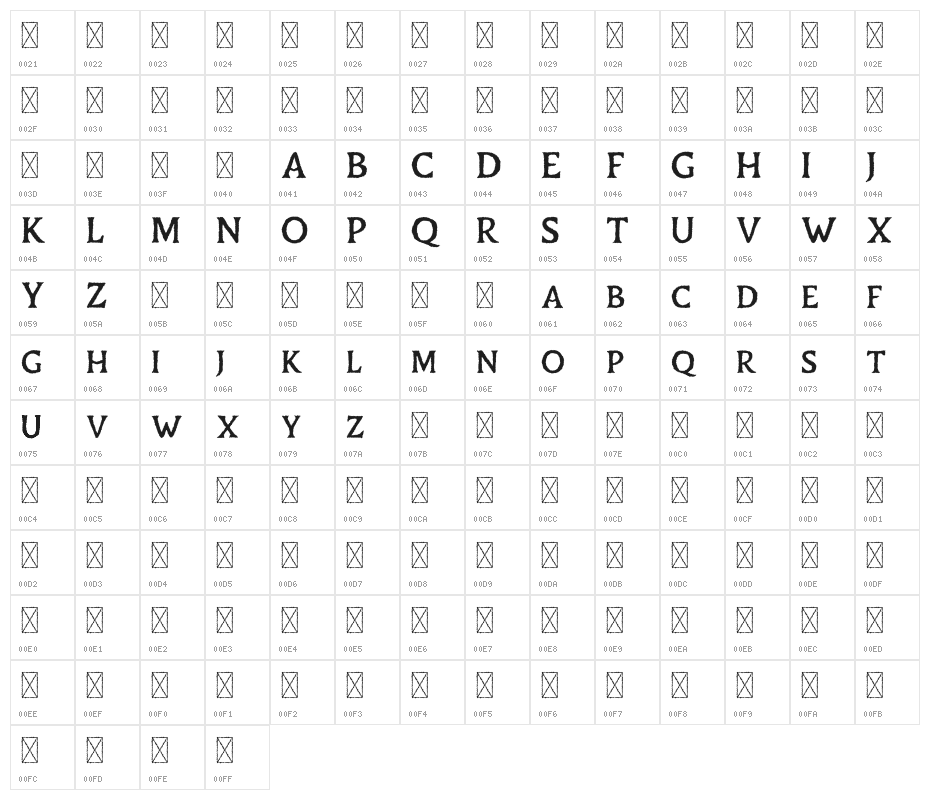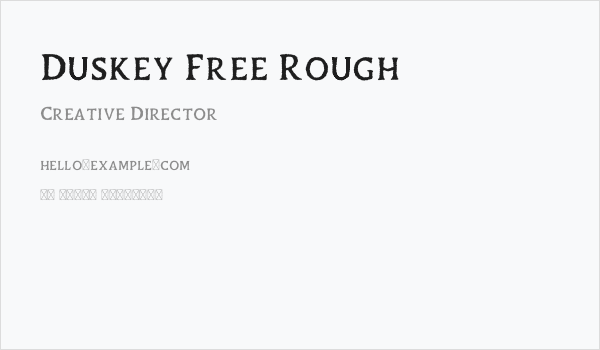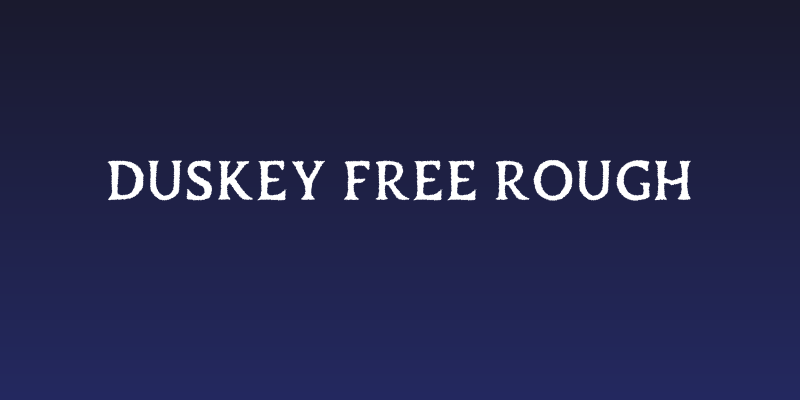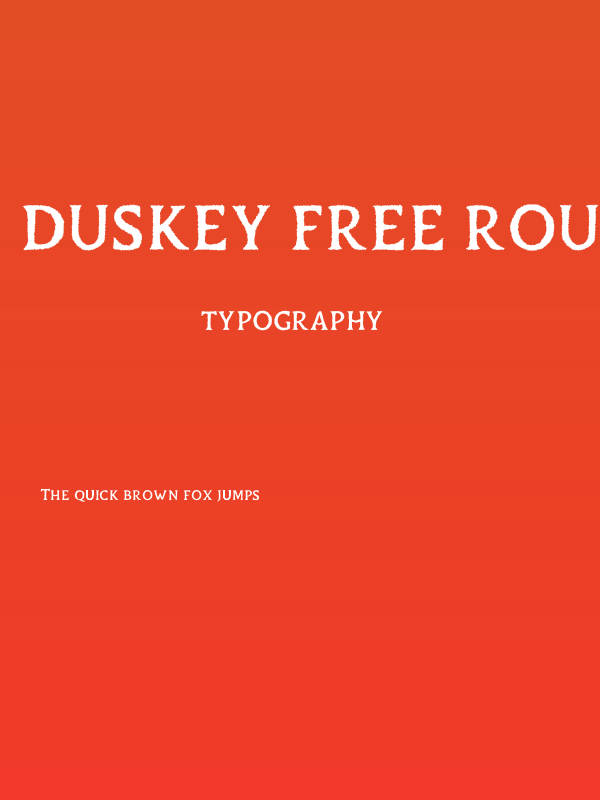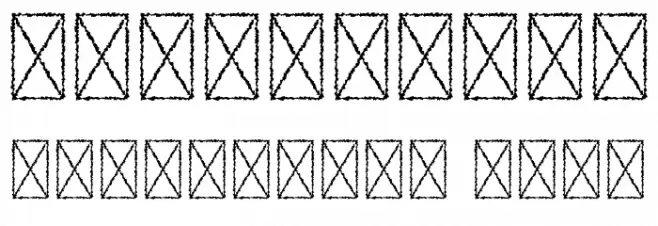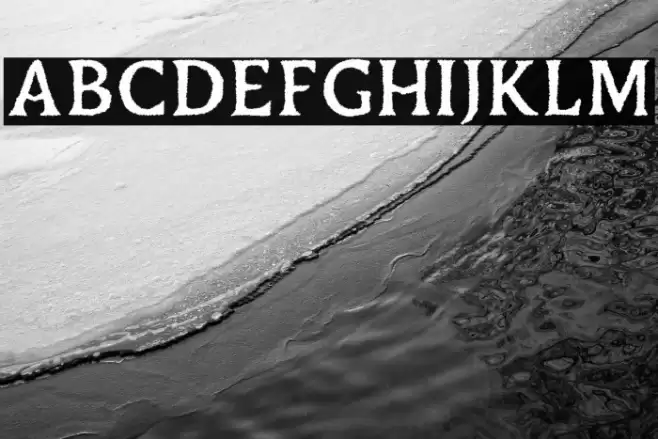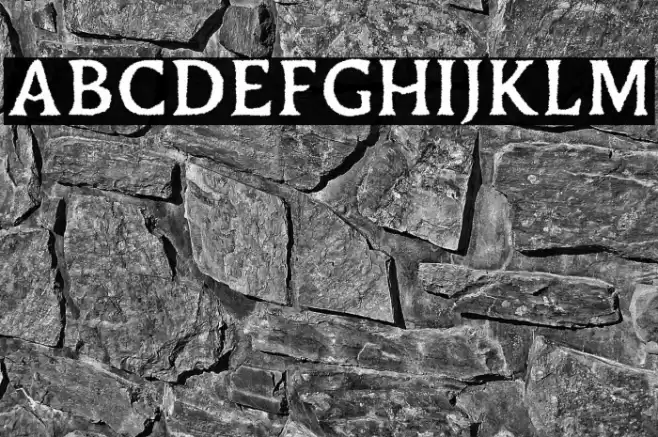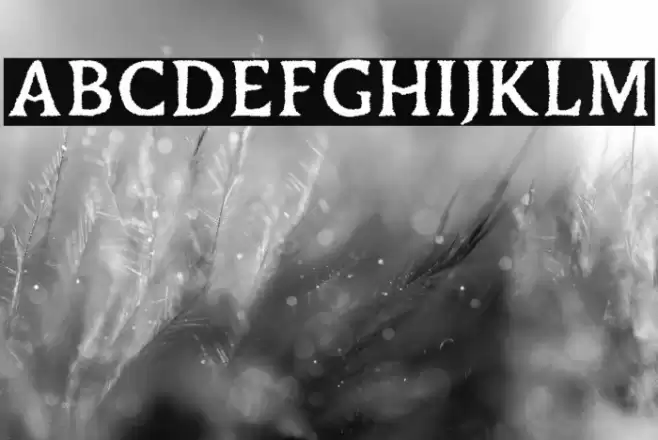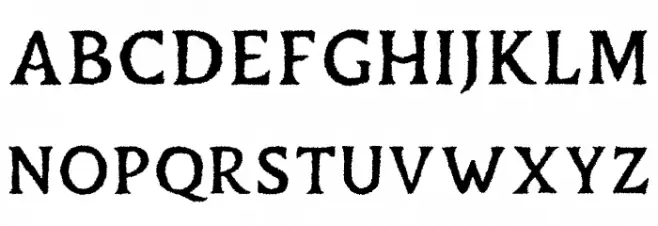
Duskey Free Rough Font
Duskey Free Rough Description
This font features a rugged, hand-drawn aesthetic that gives it a distinctive, textured appearance. The uppercase letters are bold and slightly irregular, adding a sense of personality and uniqueness. The edges are rough, creating a vintage or rustic feel. The characters are evenly spaced, ensuring readability while maintaining the font's artistic flair. This style is reminiscent of traditional printmaking techniques, where each letter carries a handcrafted charm. The overall look is both bold and approachable, making it suitable for projects that require a touch of authenticity and creativity.
| Proposed Projects | Ideal for branding, packaging, posters, and any design that seeks a handcrafted or vintage look. |